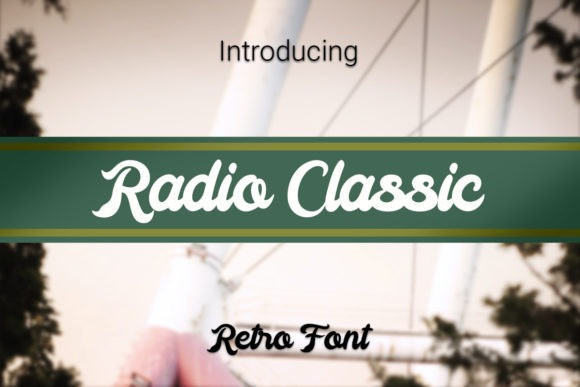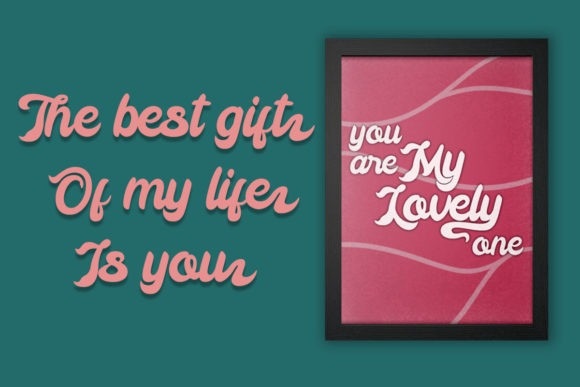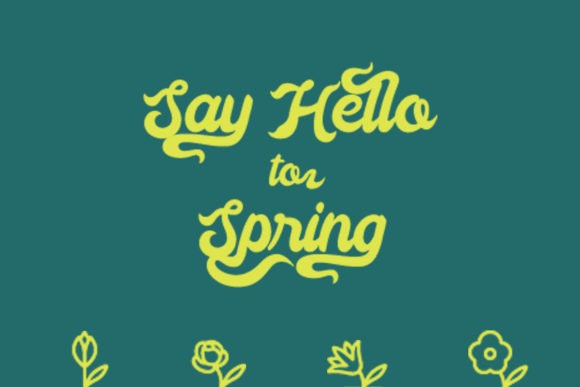
Radio Classic Script Font
Radio Classic is a retro styled handwritten font. Flowing and well balanced, this font is the perfect choice for each of your designs.